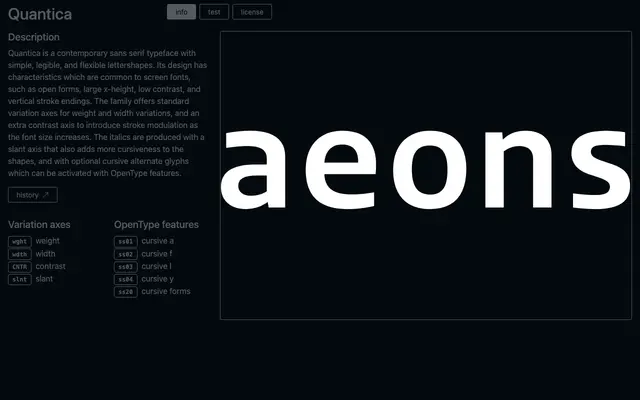
Quantica
A variable sans serif by Hipertipo built for screen legibility, offering weight, width, contrast and slant axes alongside optional cursive alternates.
Designed with open forms, a large x-height, low contrast and vertical stroke endings, Quantica prioritises readability at screen sizes. The family is driven by four variation axes: weight, width, a contrast axis that introduces stroke modulation as point size increases, and a slant axis that adds cursiveness to the italic. Optional cursive alternate glyphs for a, f, l and y can be activated via OpenType stylistic sets.
Quantica is a contemporary sans serif with open forms, large x-height, low contrast and vertical stroke endings characteristic of screen-optimised humanist sans designs. The variable contrast axis adds stroke modulation at larger sizes, placing it closer to humanist than geometric conventions.